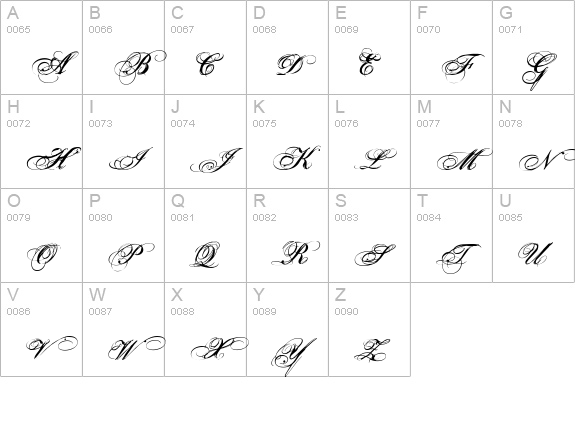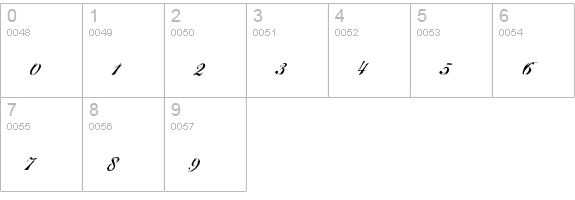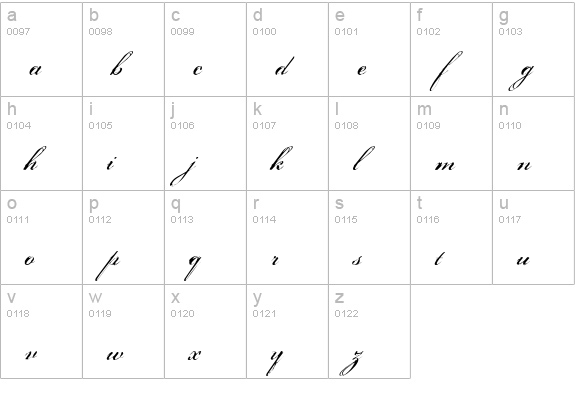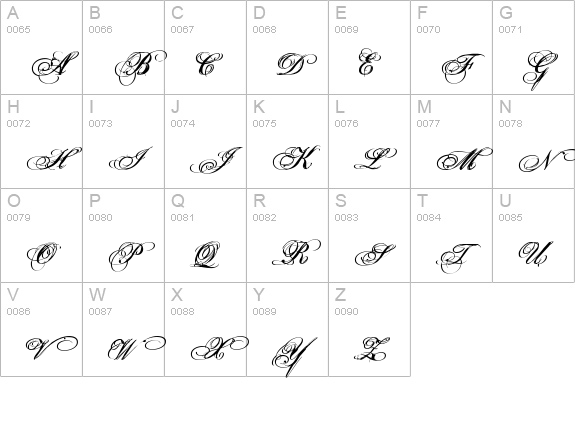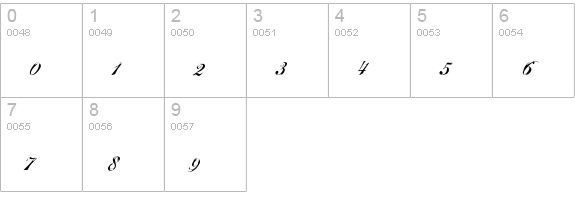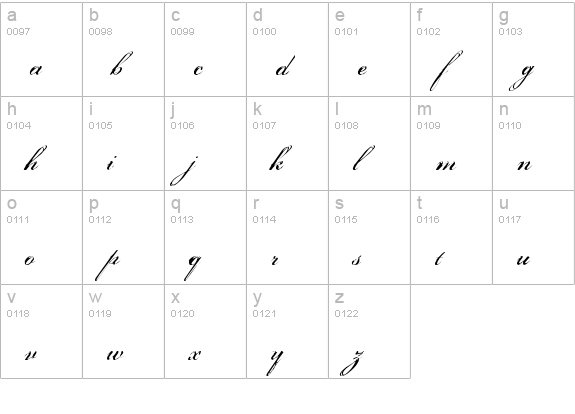
Porcelain Font Details
Porcelain font is a stunning display typeface that exudes elegance and sophistication. Its delicate and intricate design evokes a sense of luxury and refinement, making it perfect for adding a touch of class to any project. With its graceful curves and sharp lines, Porcelain font is sure to captivate and impress your audience. What's even better is that Porcelain font is available for free download at FontsMarket.com. This means you can easily access this beautiful typeface and use it in your designs without any cost. Whether you're creating invitations, branding materials, or social media graphics, Porcelain font will elevate your work to new heights. Experience the beauty and versatility of Porcelain font today by downloading it for free at FontsMarket.com.